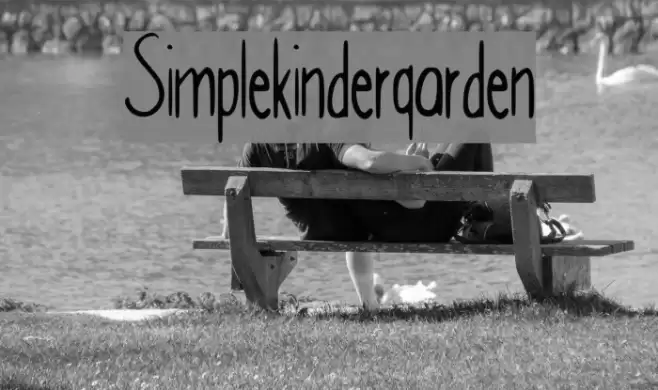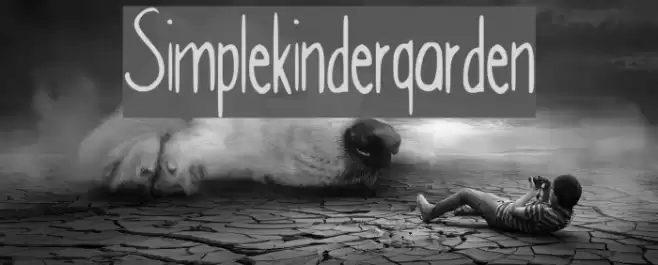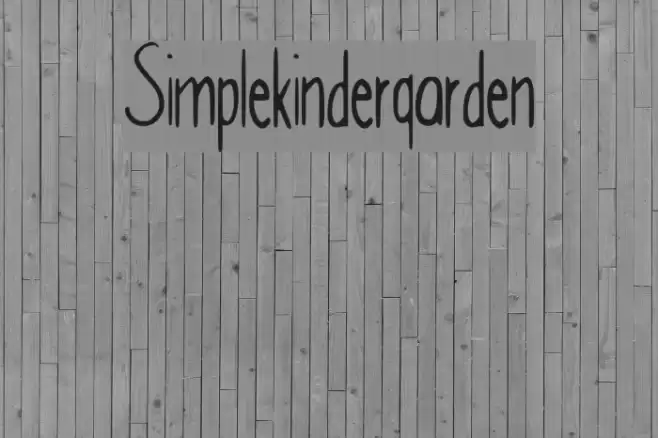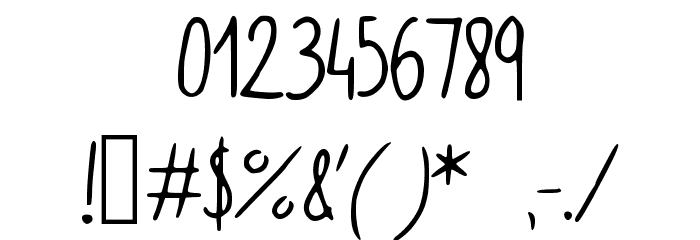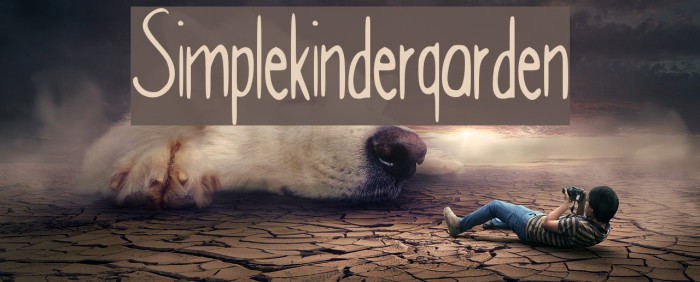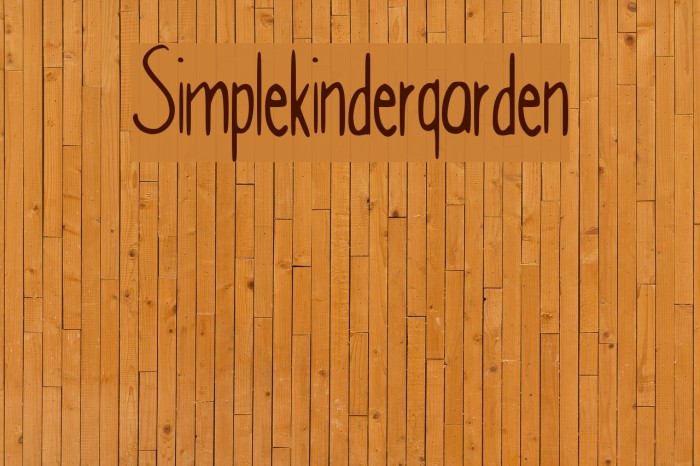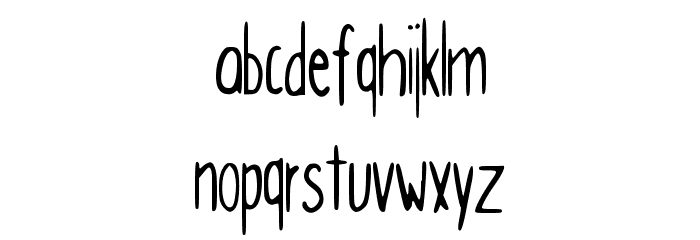
Simple_kindergarden Font
Simple_kindergarden Description
This playful and whimsical font features tall, narrow letters with a hand-drawn aesthetic, reminiscent of children's handwriting. The characters are slightly irregular, adding to the charm and informal feel. The uppercase and lowercase letters maintain a consistent style, with rounded edges and a friendly appearance. Numbers and special characters are included, matching the overall playful theme. This font is perfect for projects that require a lighthearted and approachable touch, such as children's books, educational materials, or playful branding.
A playful, hand-drawn font with a whimsical, childlike style from Handwritten fonts.
- Proposed Projects: Ideal for children's books, educational materials, playful branding, and creative projects.
- Overall Style: Playful
- Use Case: Headlines, Logos, Creative projects